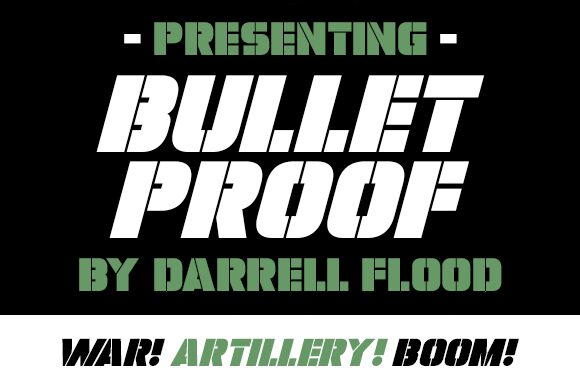
Bulletproof Italic
Bulletproof Italic is a bold display font designed by Darrell Flood. This military-style typeface is part of the Bulletproof font family and is perfect for creating an edgy, striking look. It's great for titles, logos and headlines that need to make a strong impression. Use it for posters, banners, comic book covers and any other project that calls for an impactful aesthetic.